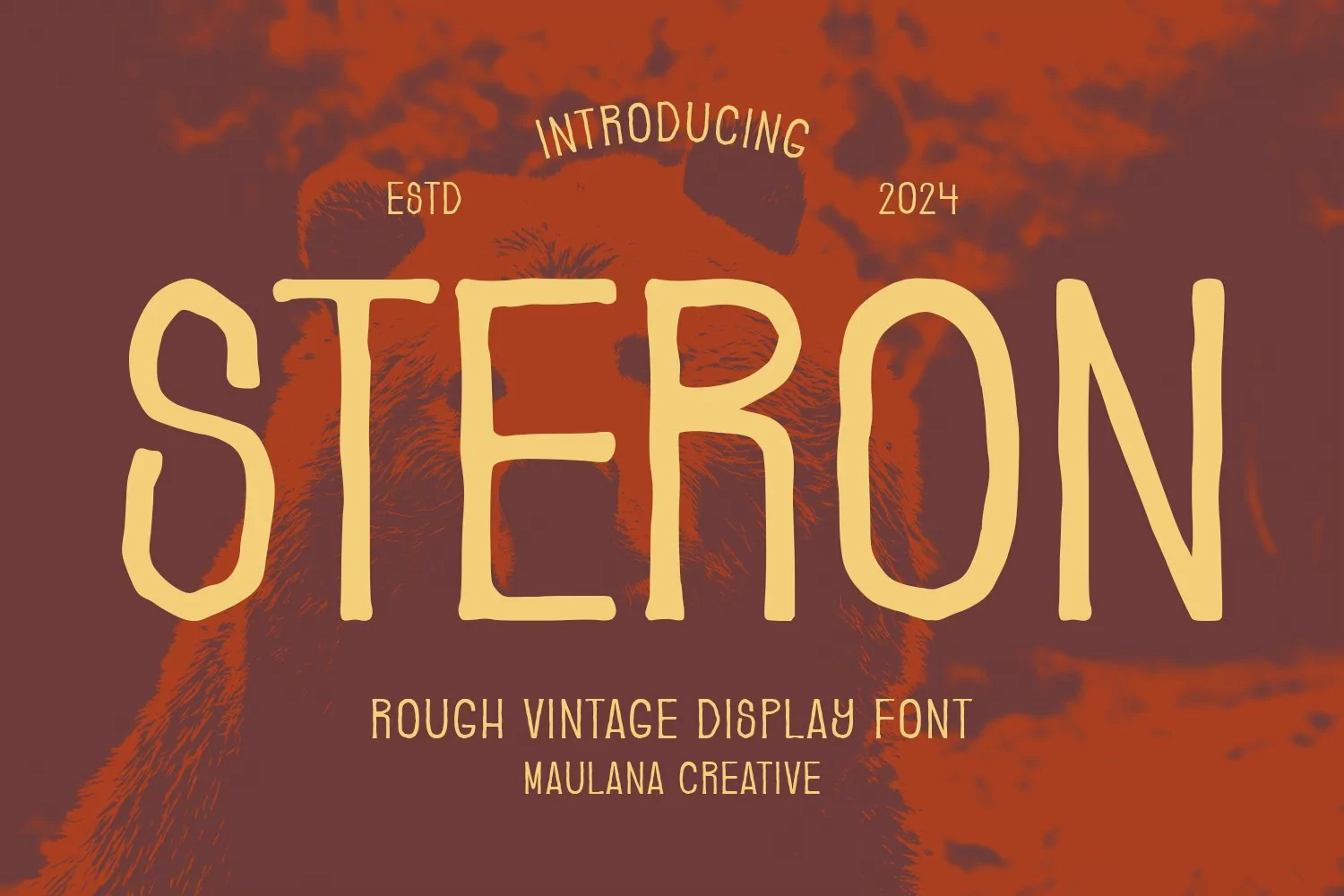
Steron is a rough vintage display sans font. With smooth stroke, fun character with a bit of ligatures. To give you an extra creative work. Steron font support multilingual more than 100+ language. This font is good for logo design, Social media, Movie Titles, Books Titles, a short text even a long text letter and good for your secondary text font with sans or serif. Make a stunning work with Steron font.